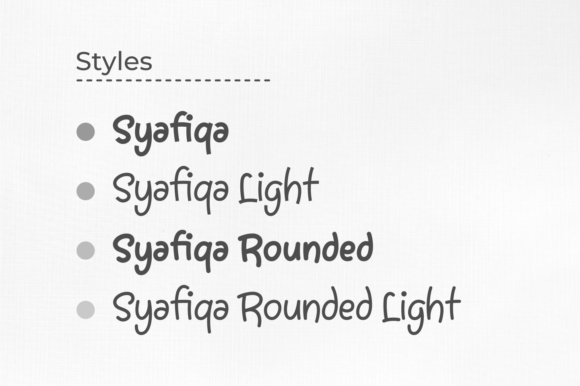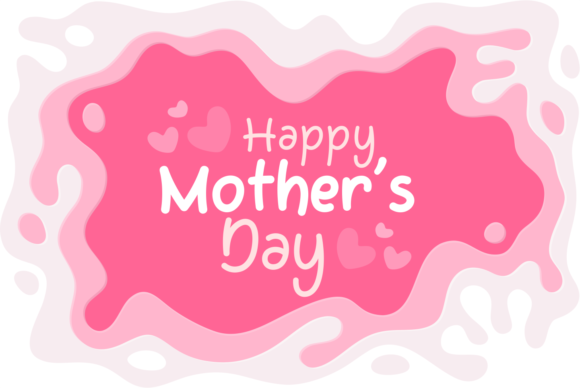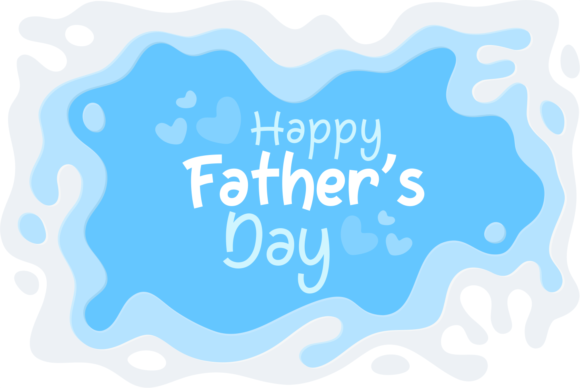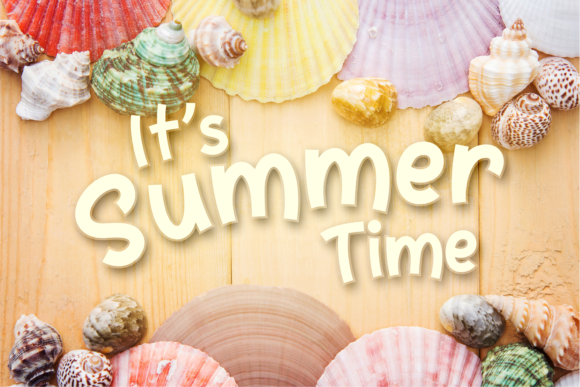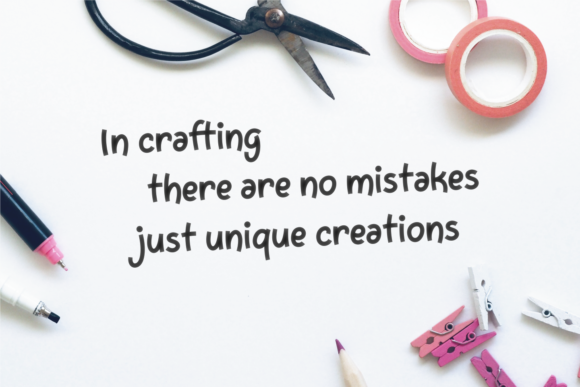
Syafiqa Font
About Syafiqa Font
Syafiqa is a chic handwritten font that can be used for all chalkboard quotes or teaching material! Its authentic look and feel will add a personal and realistic feel to your designs.